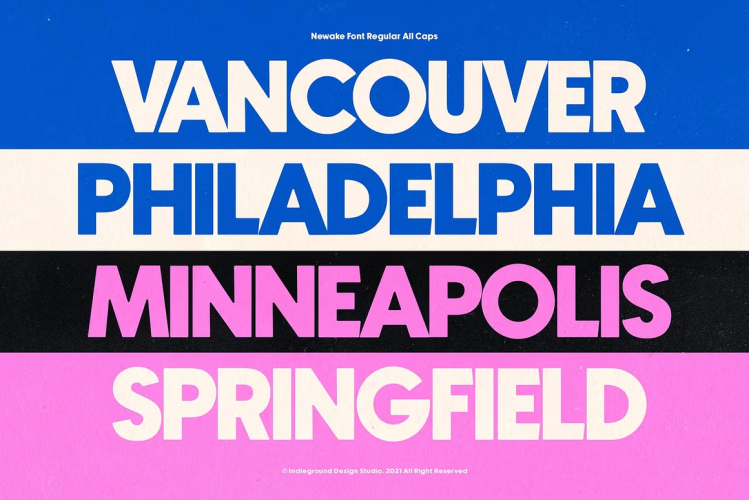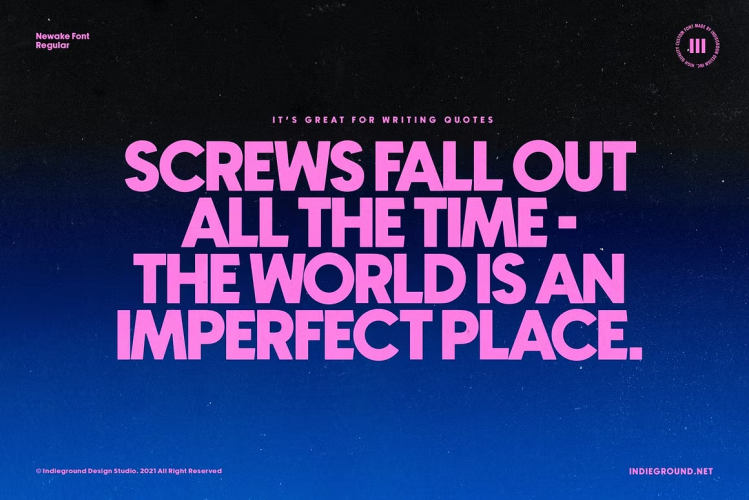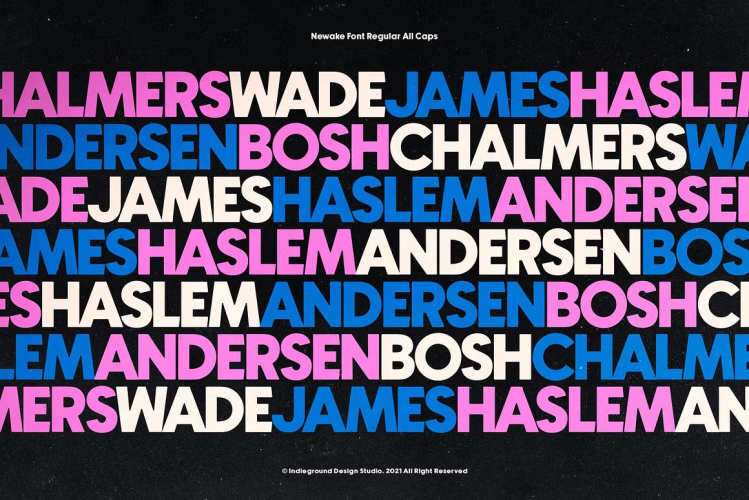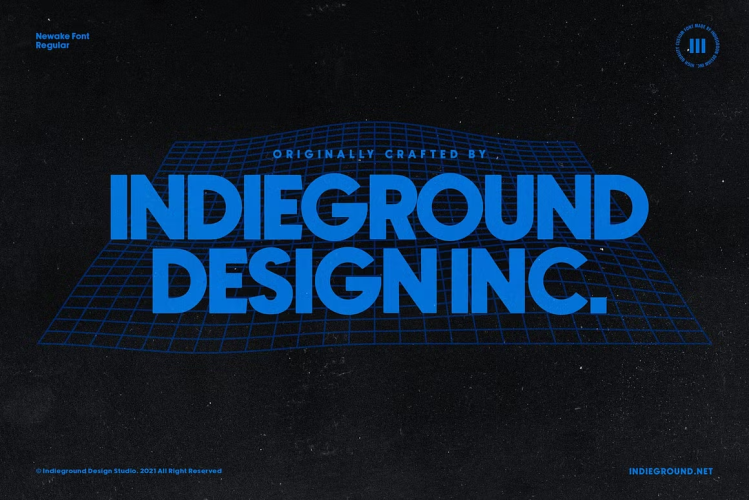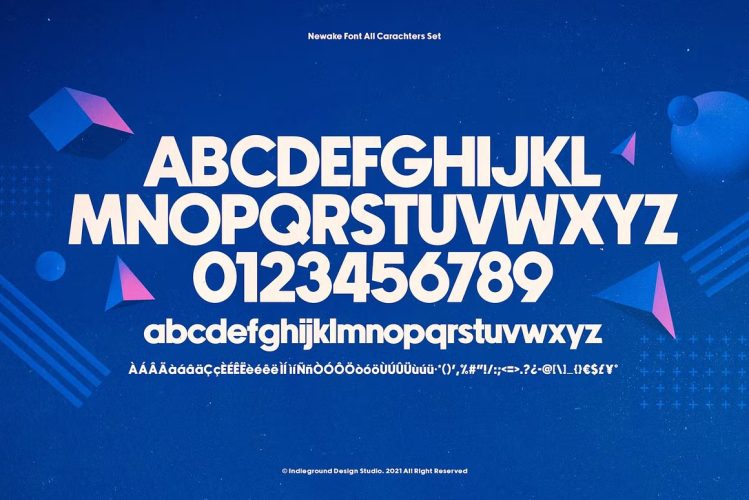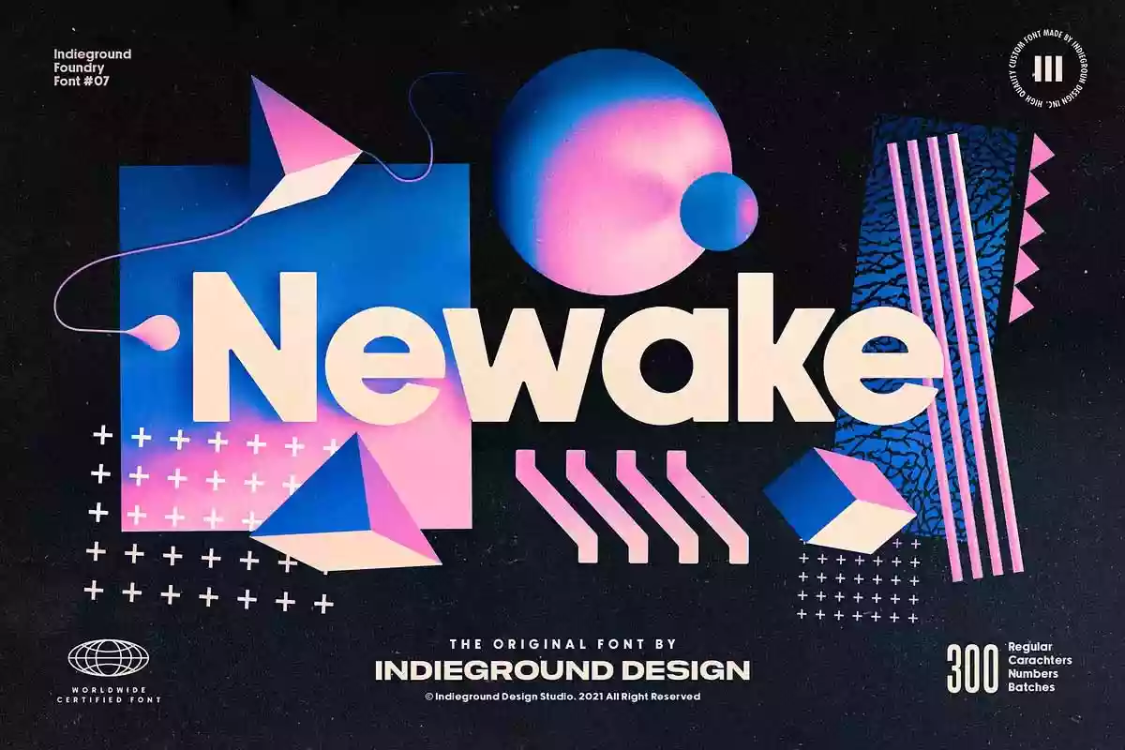
Newake Font
The Newake Font designed by the Indieground Team is a perfect sans serif font for various graphic design projects such as titles, logos, editorial design, packaging, and web design. It is suitable for any typography-related project as well. The font’s letters have slightly rounded corners, which adds an elegant touch to your text and quotes. This font has a minimalist feel, which gives an excellent style and weight to all your artistic compositions. The regular commercial version of the font includes the entire character set shown in the preview.
Newake Font is a Sans Serif Fonts font that brings a professional and versatile look to your projects. The Newake Font designed by the Indieground Team is a perfect sans serif font for various graphic design projects such as titles, logos, editorial design, packaging, and web design.